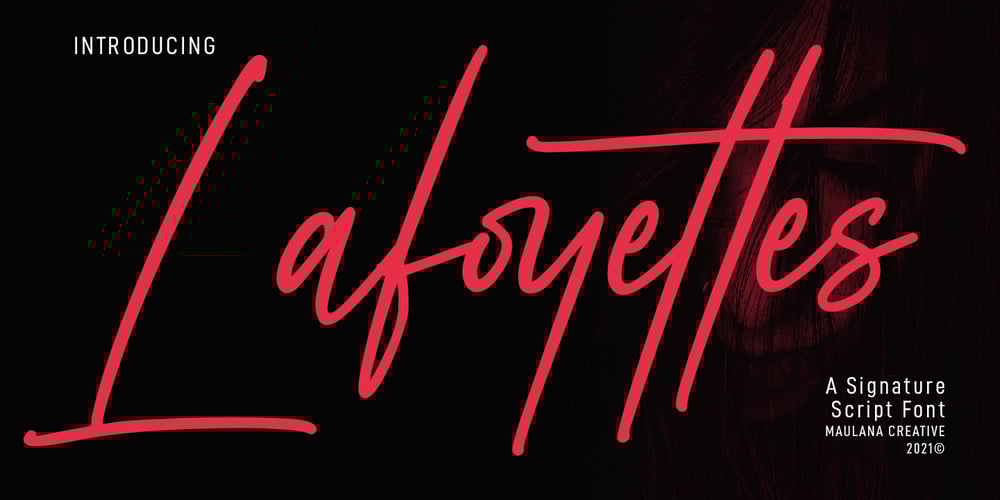
Lafoyettes Font Family was designed by Gilang Maulana and published by Maulana Creative. Lafoyettes contains 1 styles and family package options. Lafoyettes is a Casual Signature Script font. With semi mono-line light stroke, fun character with a bit of ligatures. To give you an extra creative work. Lafoyettes font support multilingual more than 100+ language. This font is good for logo design, Social media, Movie Titles, Books Titles, a short text even a long text letter and good for your secondary text font with sans or serif. Make a stunning work with Lafoyettes font. Cheers, MaulanaCreative